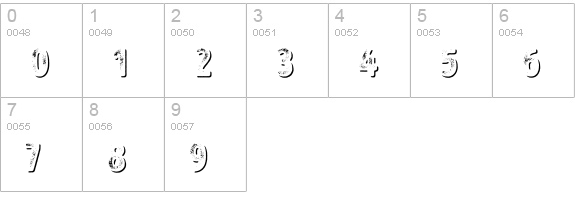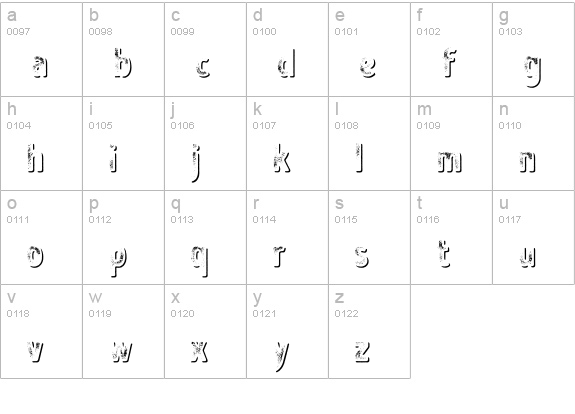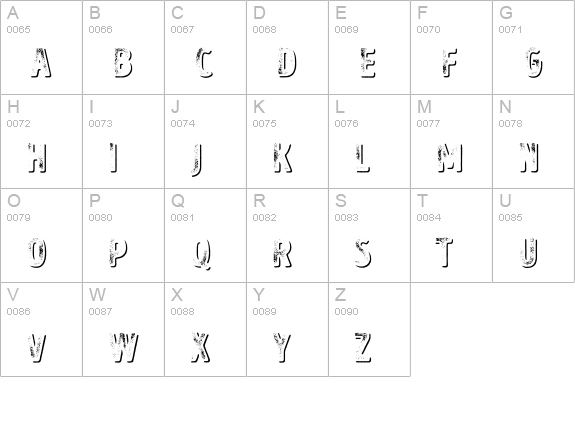
Intro Head H G Shade font is a bold and striking typeface designed to make a statement. With its edgy and modern feel, this font is perfect for headlines, posters, and other graphic design projects that require a strong visual impact. The unique shading effect adds depth and dimension to the characters, making them stand out in any design. Best of all, Intro Head H G Shade font is available for free download at FontsMarket.com. Whether you're a designer looking to add a new font to your collection or a hobbyist creating personal projects, this font is a must-have addition to your toolkit. Download it today and start creating eye-catching designs with ease.